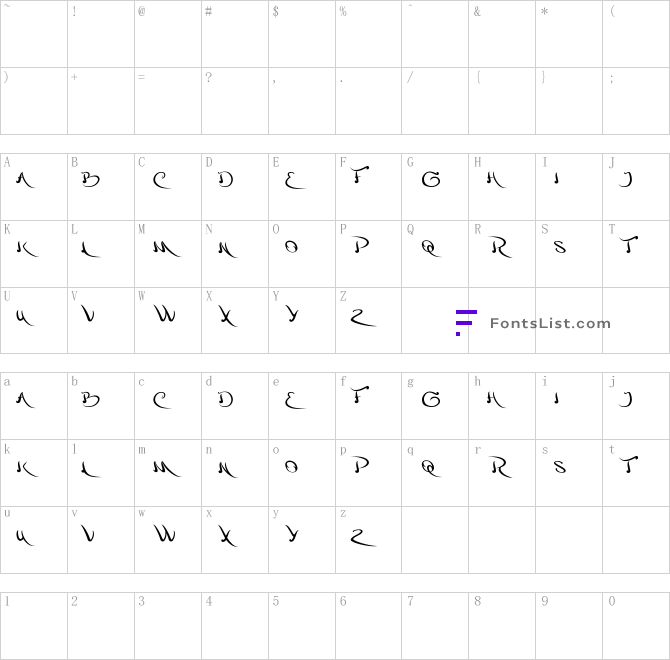
- Font Name:agriculture
agriculture.ttf is a very beautiful artistic font, agriculture.ttf is widely used in the design and printing of various books and pictures,agriculture.ttf has a strong visual impact,agriculture.ttf is a commonly used font in newspapers, magazines and books, and is used in posters, e-commerce Poster design, store design, logo design, font design and other fields.agriculture.